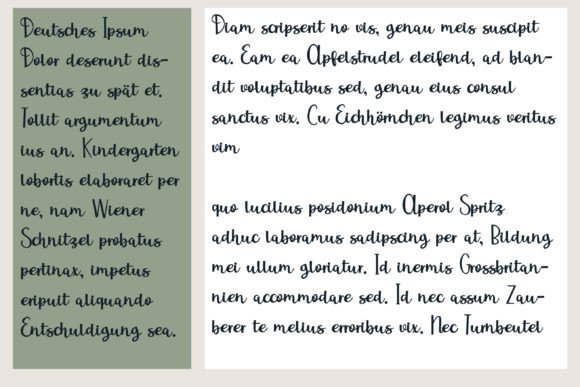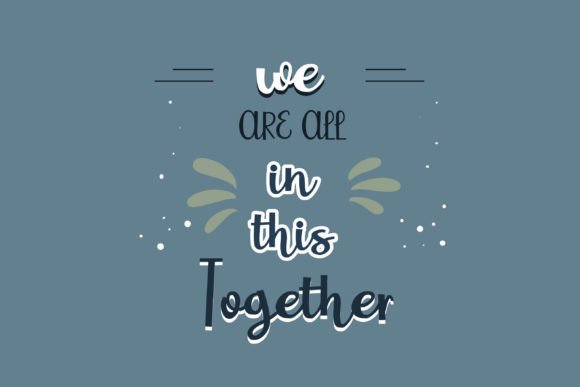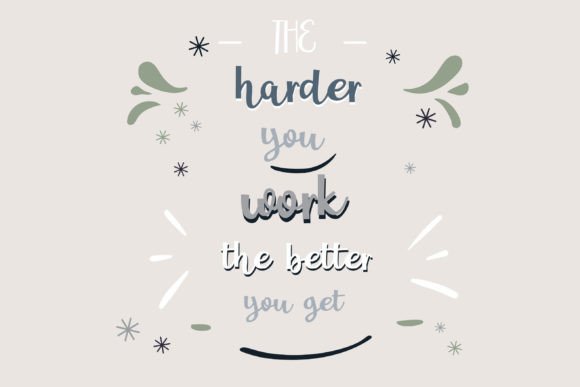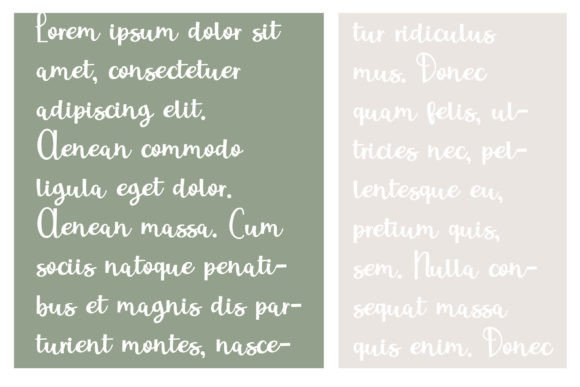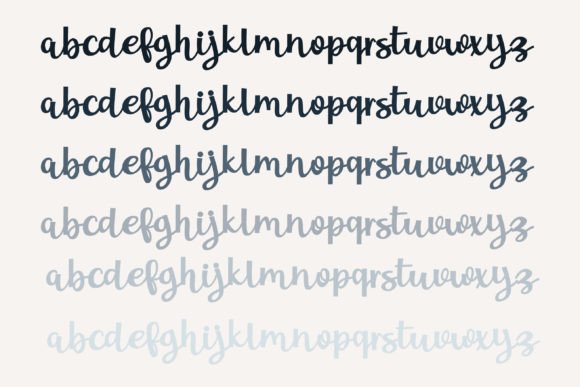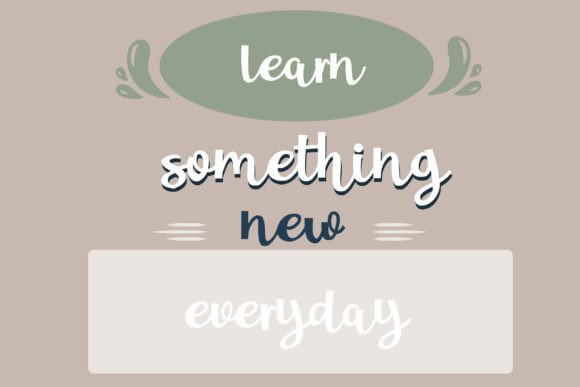
Introduction to Snoozefest Font
Have you ever found yourself rummaging through your craft supplies, searching for the perfect font to give your project that extra oomph? You know, that moment when you finally stumble upon the perfect combination of colors and typography, and suddenly your creative project comes to life? For designers, that moment is priceless, and it’s exactly what the Snoozefest Font promises to deliver.
As a versatile and playful handwritten font, Snoozefest Font is perfect for any creative endeavor, whether you’re working on a digital design project, creating greeting cards, or even just adding a personal touch to your presentations. With its high-quality design and transparent background, this font is an excellent addition to any design resource.
Key Features of Snoozefest Font
- High-quality, vector-based font design for a seamless and scalable experience.
- Transparent background, allowing for effortless customization and blending with any design resource.
- Designed to be highly legible, with clear and crisp typography, making it perfect for a wide range of creative applications.
- Supports a variety of languages, ensuring it can be used in multilingual creative projects.
- Includes multiple font styles and weights, providing a comprehensive design resource for any project.
- Resolution-independent, making it ideal for use in high-resolution designs and prints.
Honest Review: Snoozefest Font
As a designer, I’m always on the lookout for new and exciting fonts to elevate my creative projects. Recently, I had the chance to work with the Snoozefest Font, and I have to say, it’s been a game-changer. ✨
Here are some of the things that I think make the Snoozefest Font stand out:
- High quality: The font is crisp and clear, making it perfect for any design project.
- Transparent background: This allows for seamless integration with any design element, giving me more creative freedom.
However, I do have a few criticisms:
⚠️ The font can be a bit too playful at times, which may not be suitable for all design projects. Additionally, the font doesn’t come with a wide range of font weights, which can limit its versatility.
Overall, I’m really impressed with the Snoozefest Font. It’s a great addition to any designer’s toolkit, and I’d highly recommend it for any creative project that needs a touch of whimsy. With a bit more development, I think this font could be truly exceptional.
Tips for Getting the Most Out of the Snoozefest Font
To get the most out of the Snoozefest Font, use it on a transparent background to create a modern and trendy look. You can also pair it with other high-quality fonts to create a unique and eye-catching design.
The Snoozefest Font is perfect for creative projects such as blog posts, social media graphics, and marketing materials. It’s also great for use in presentations, posters, and flyers. With its high-quality design and transparent background, the Snoozefest Font is a versatile design resource that’s perfect for any project.